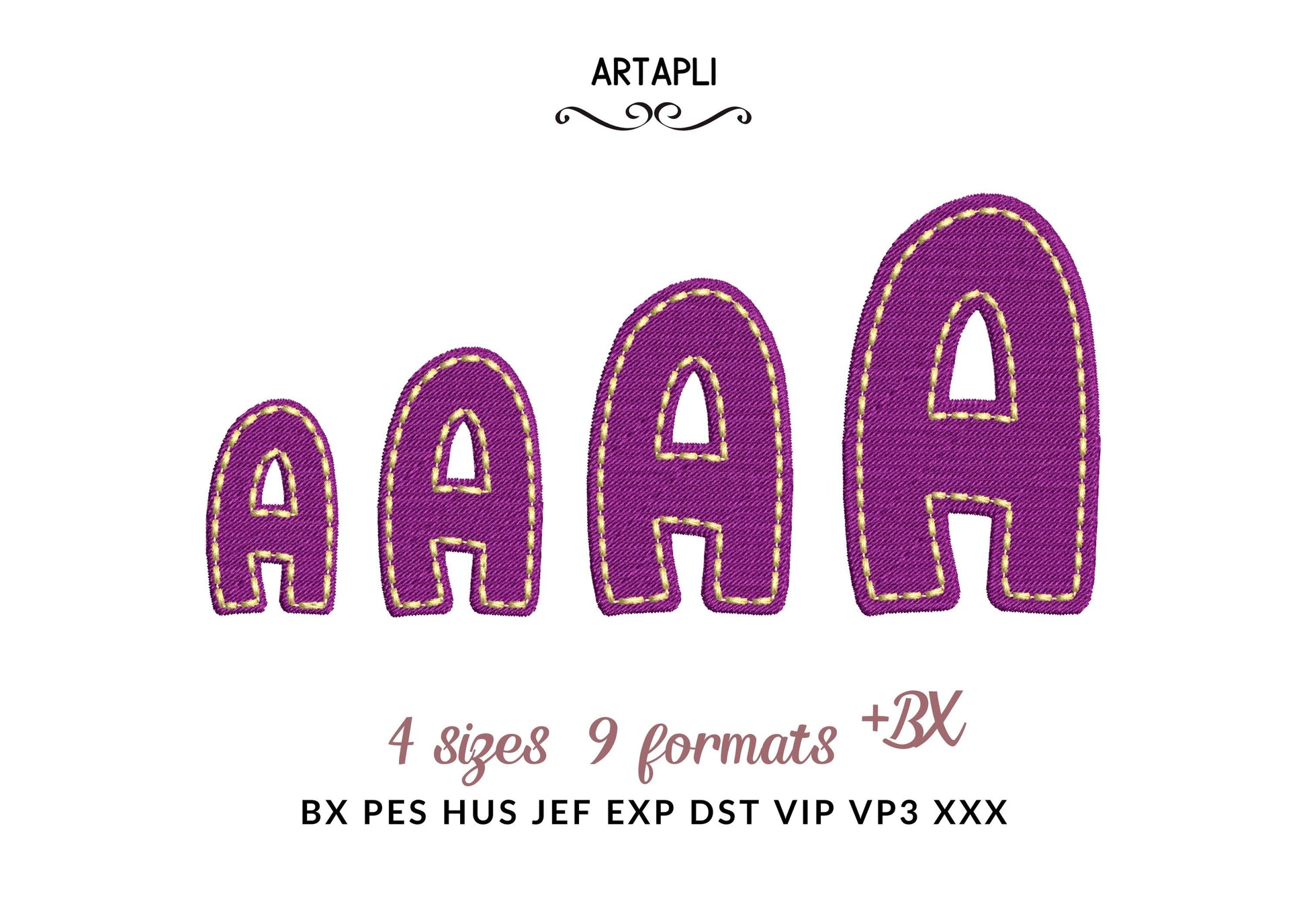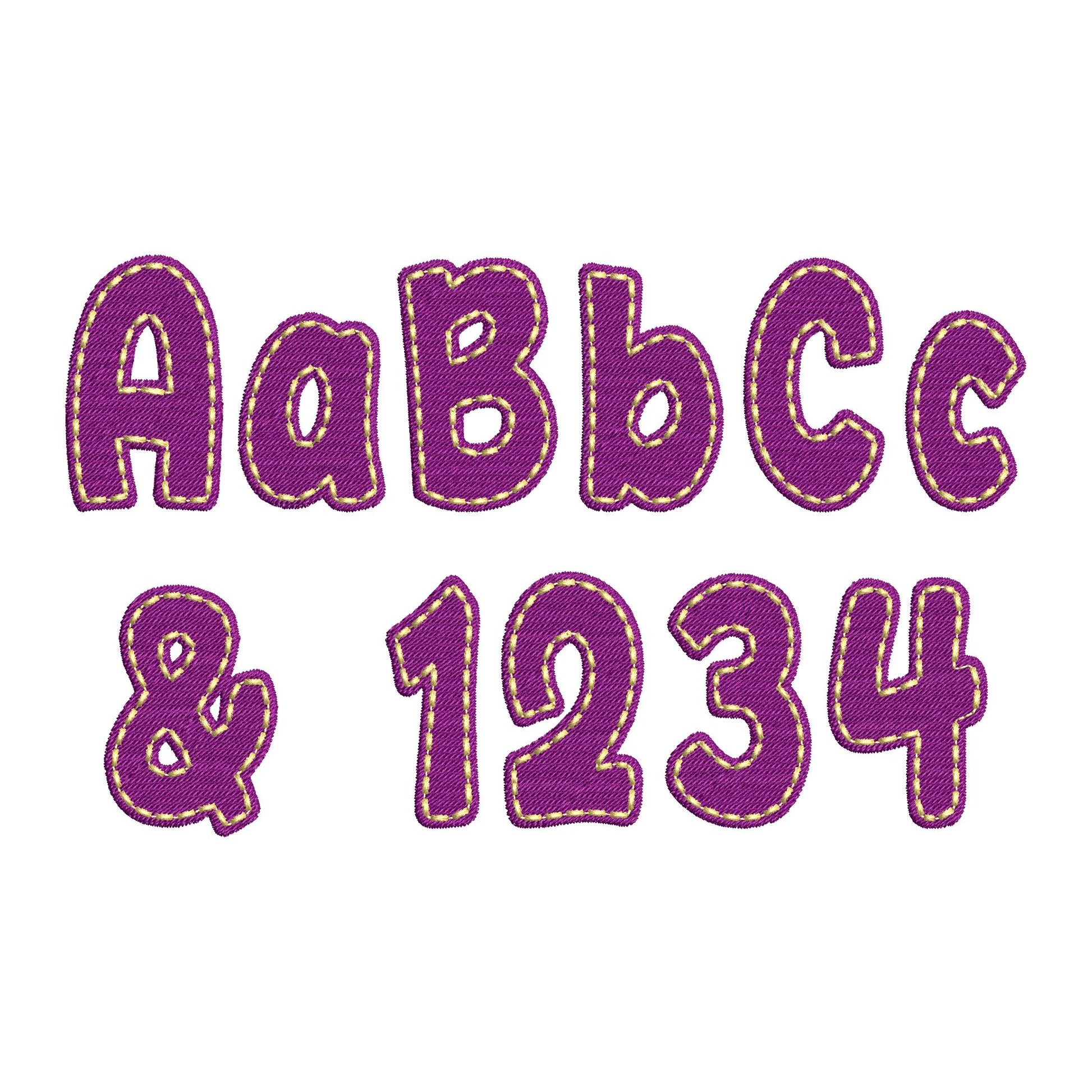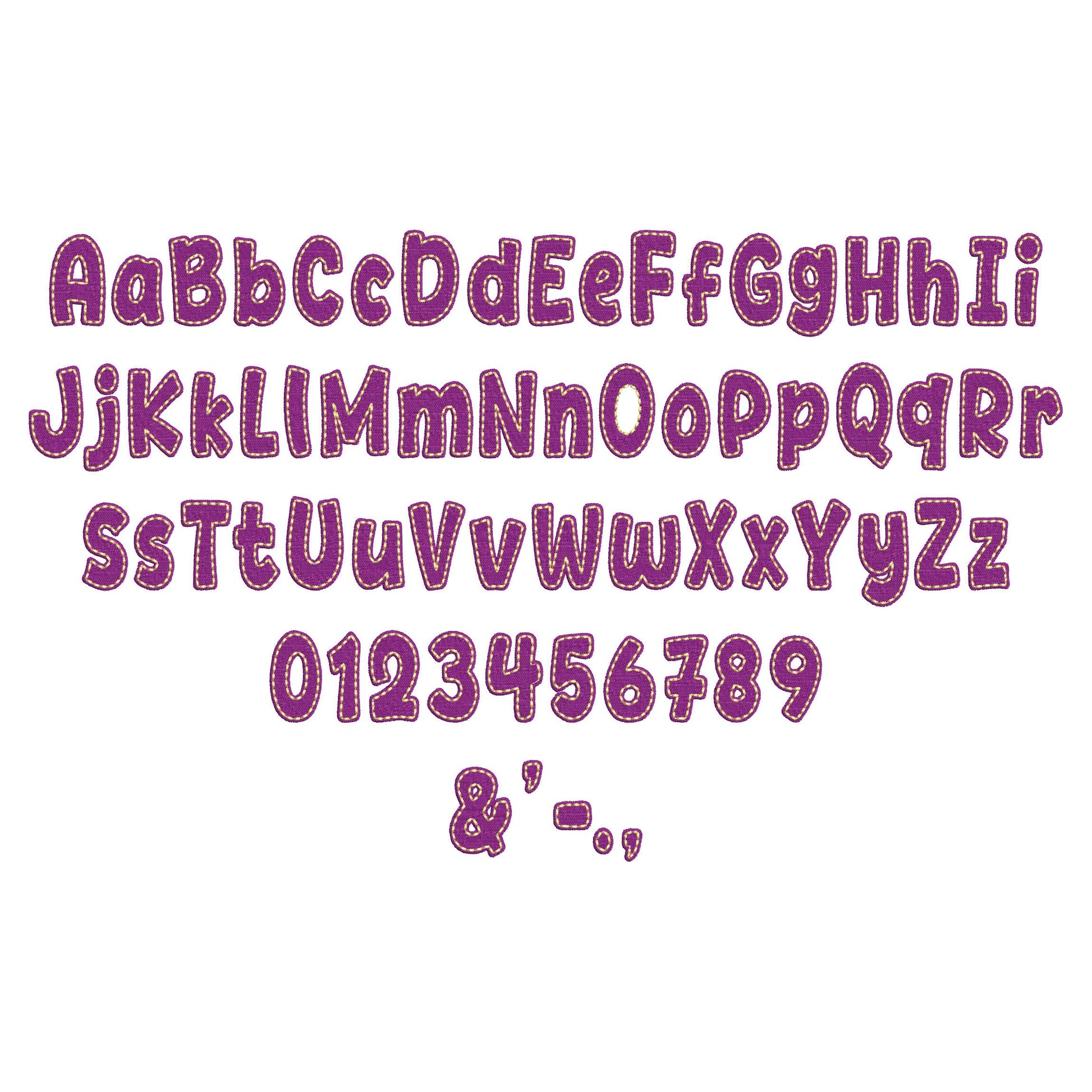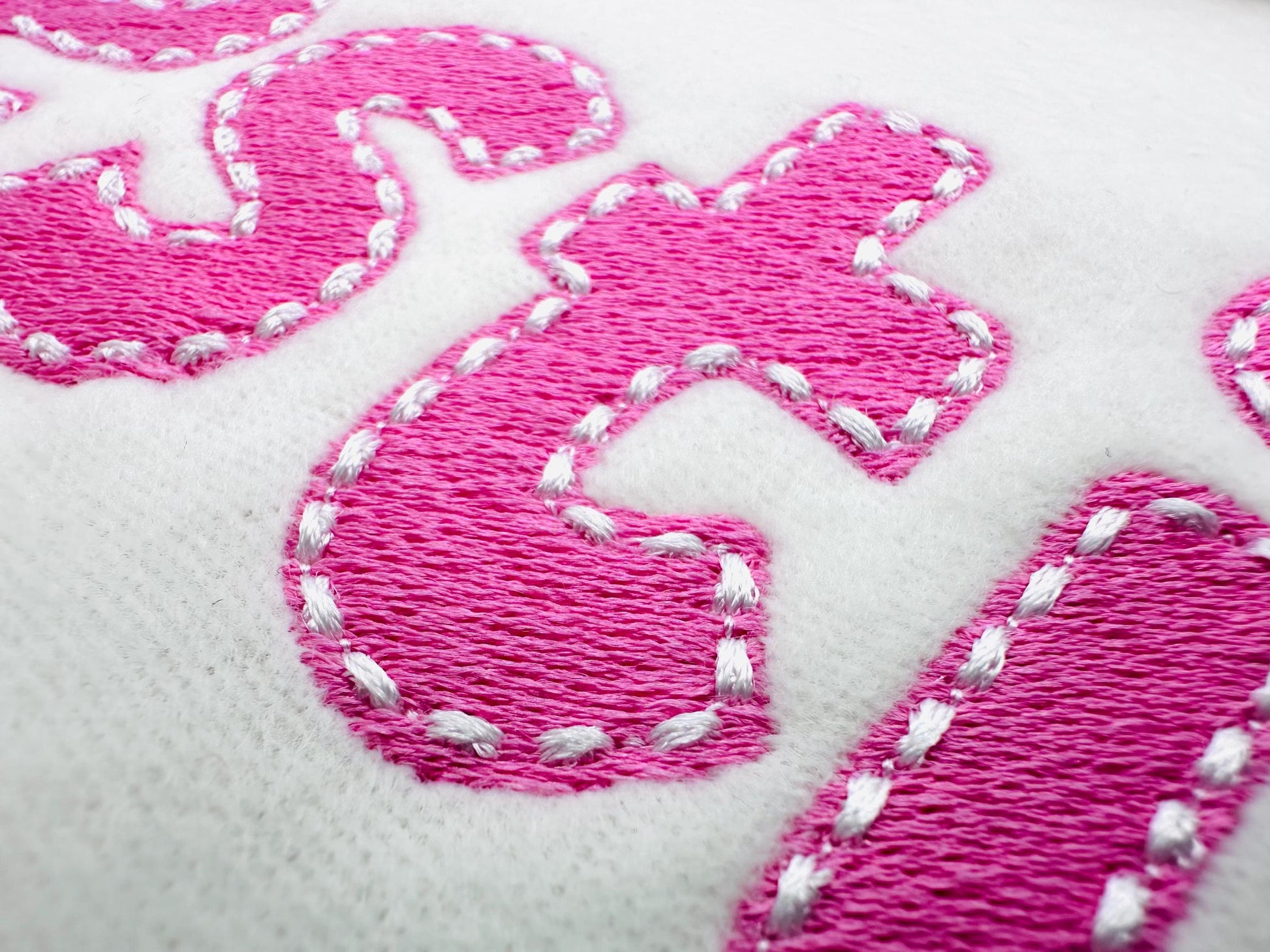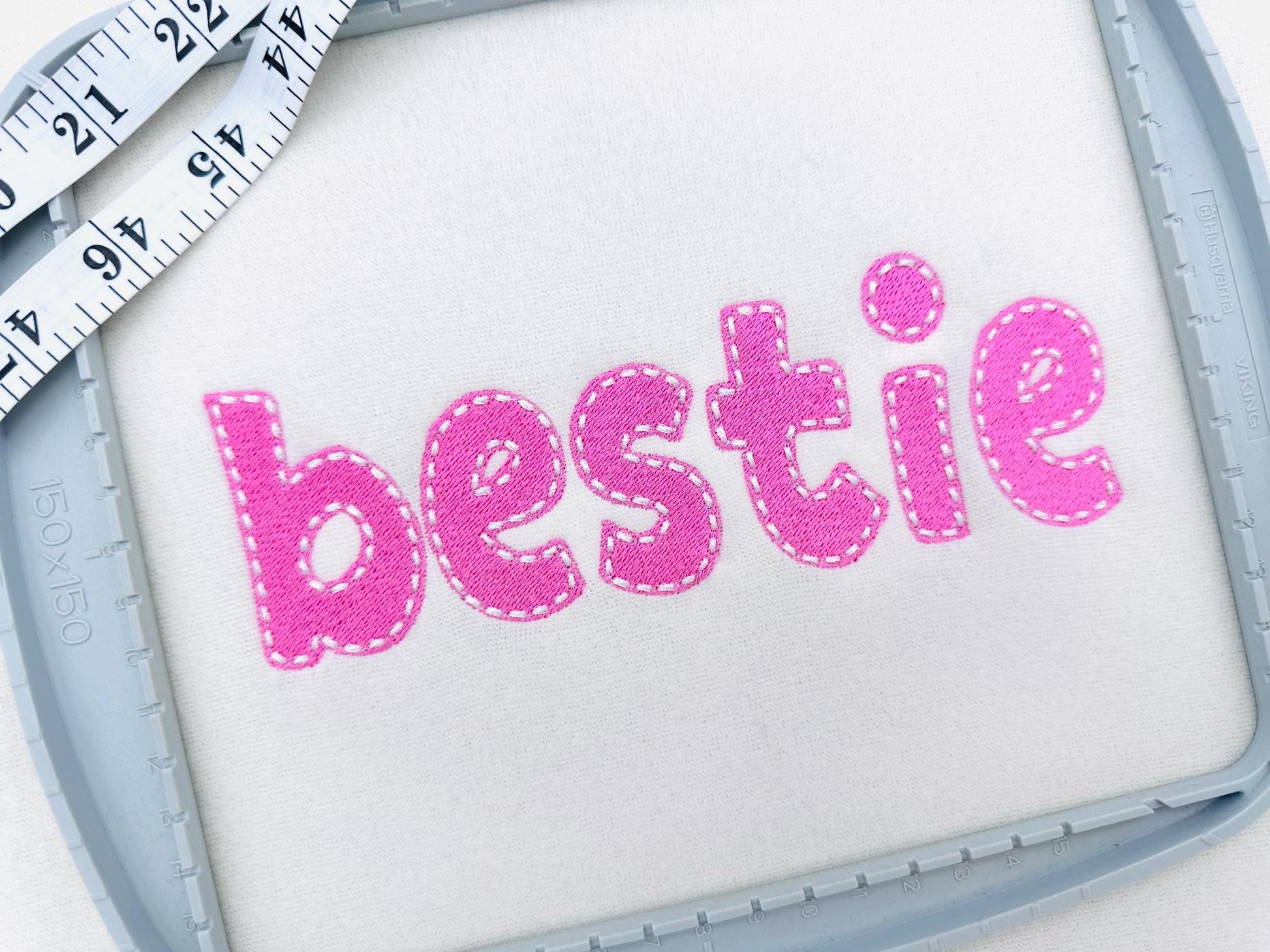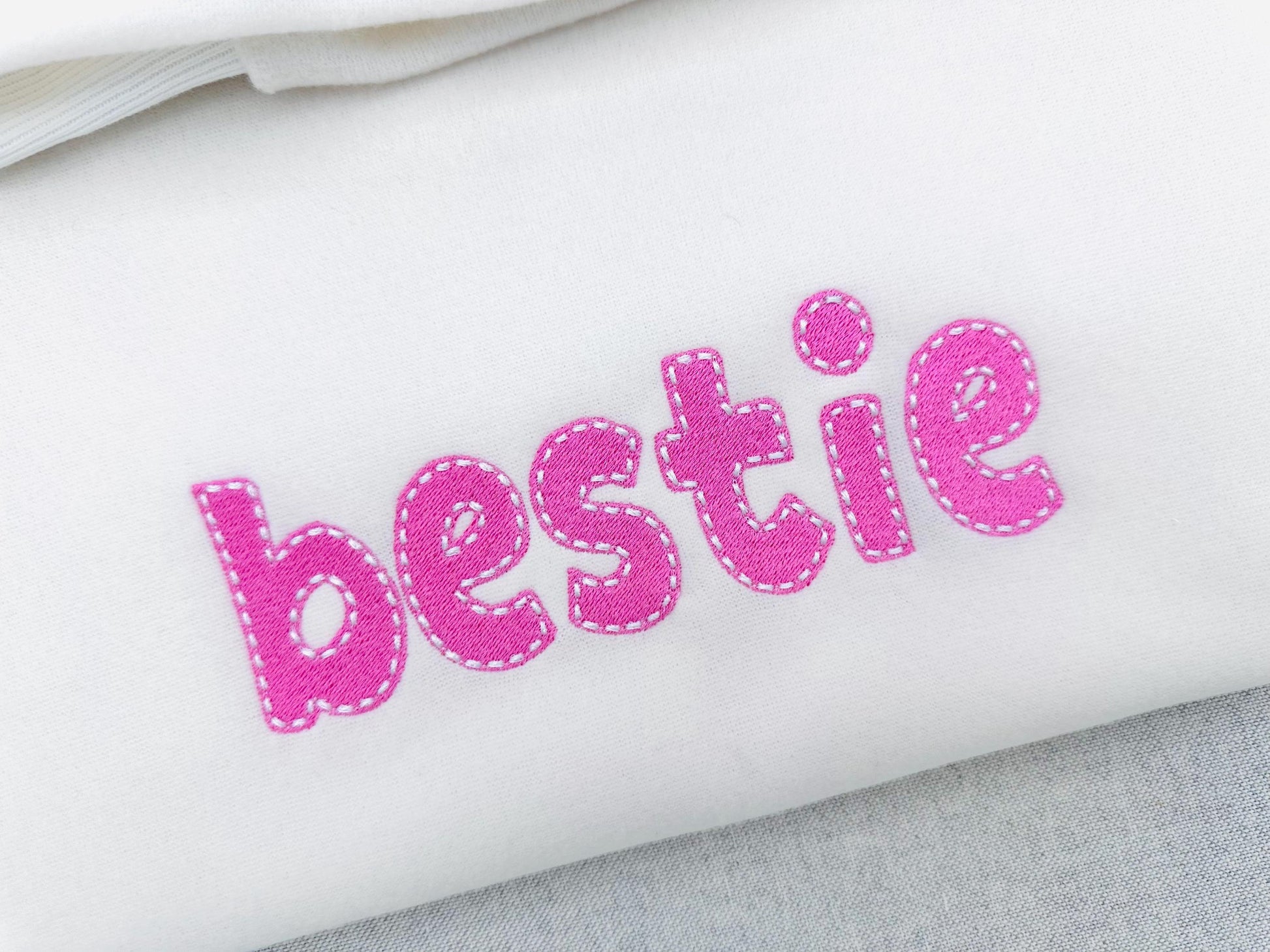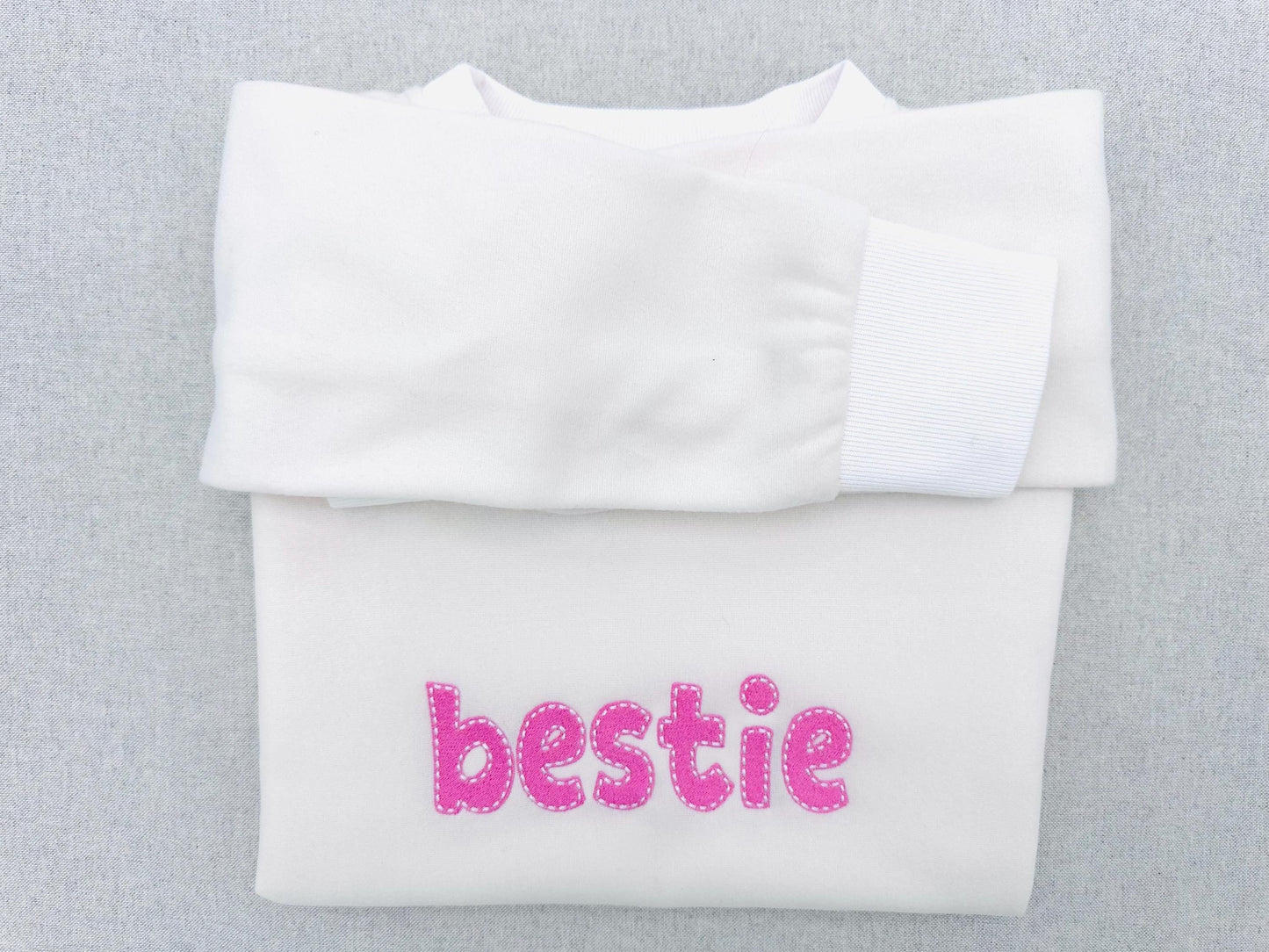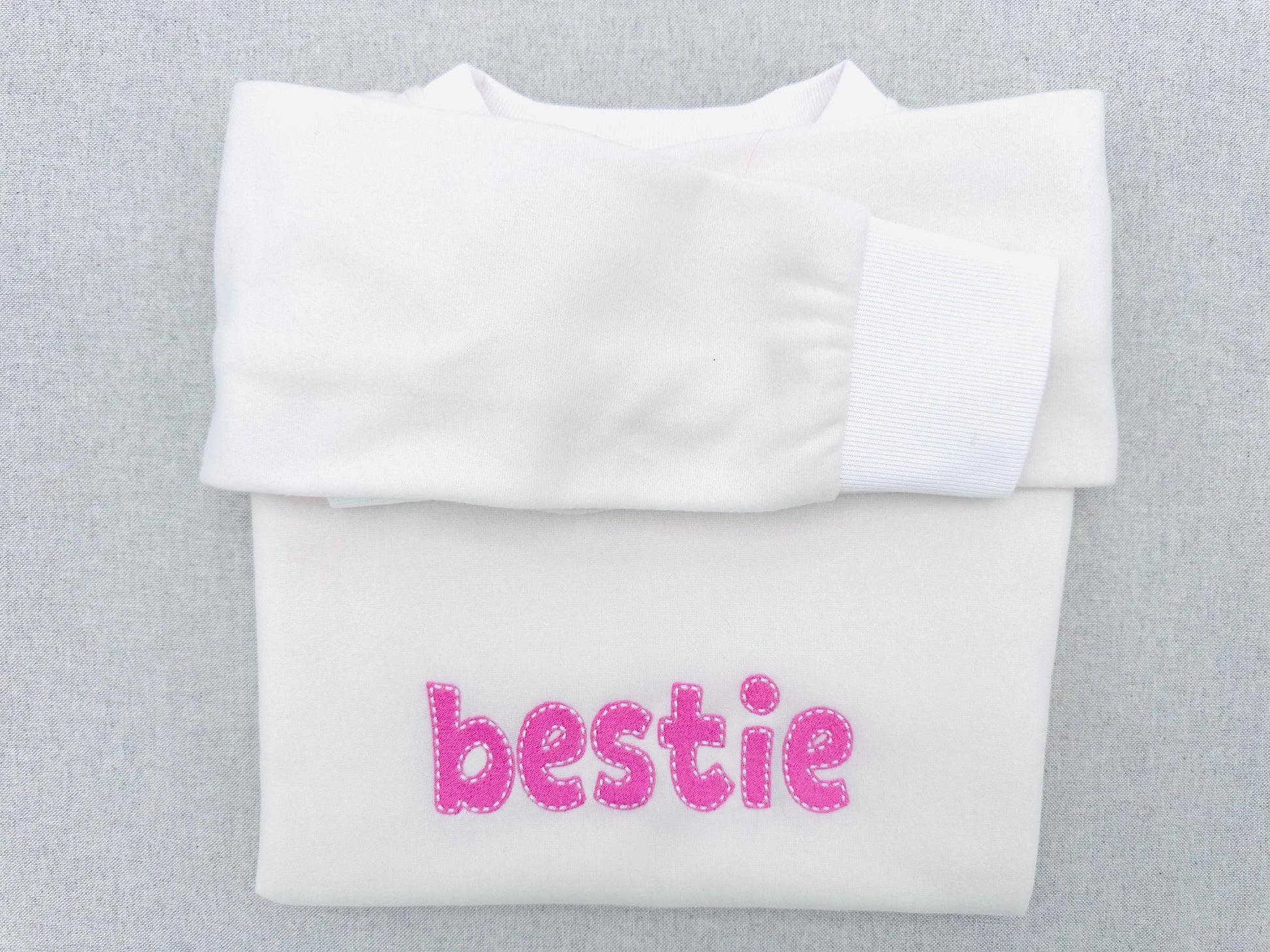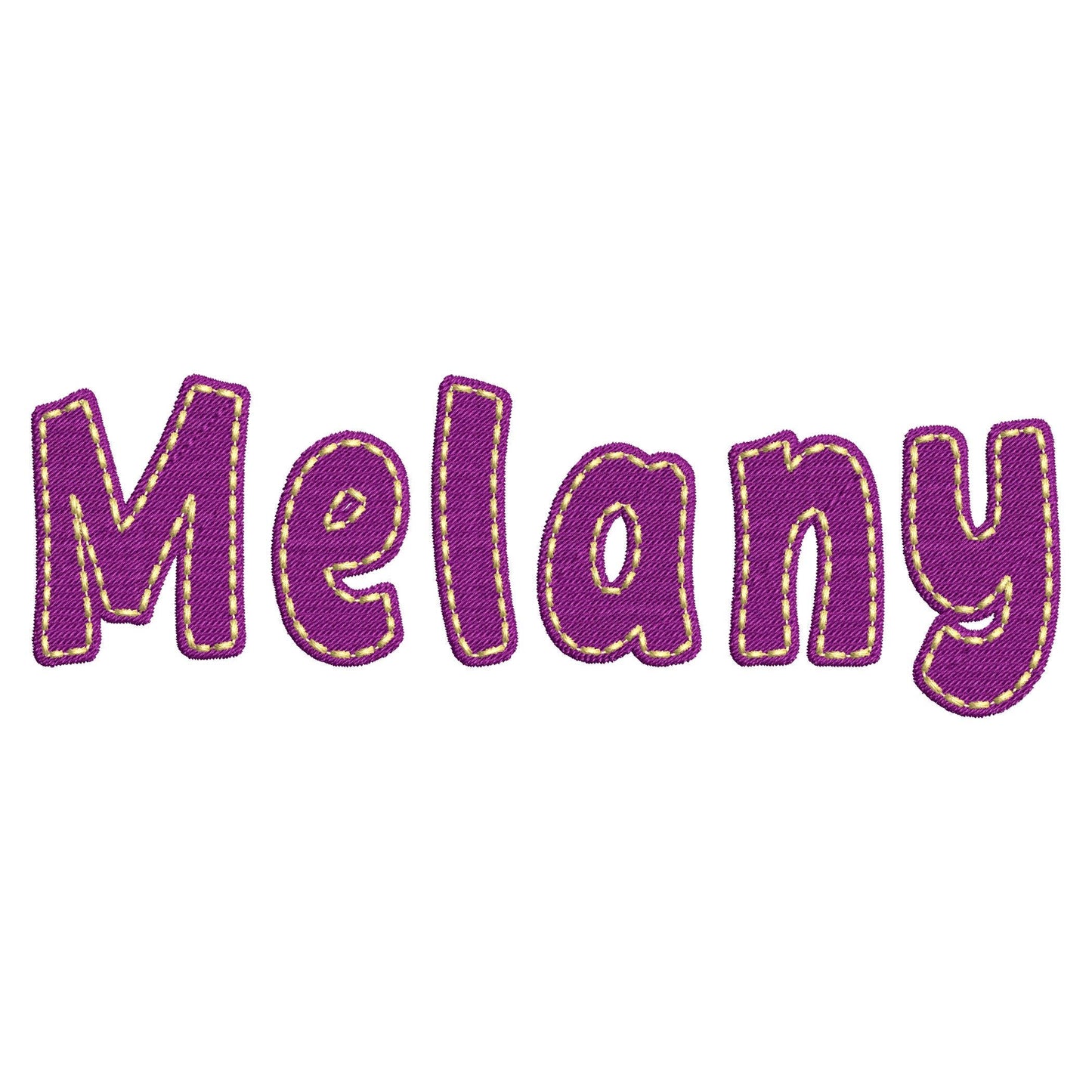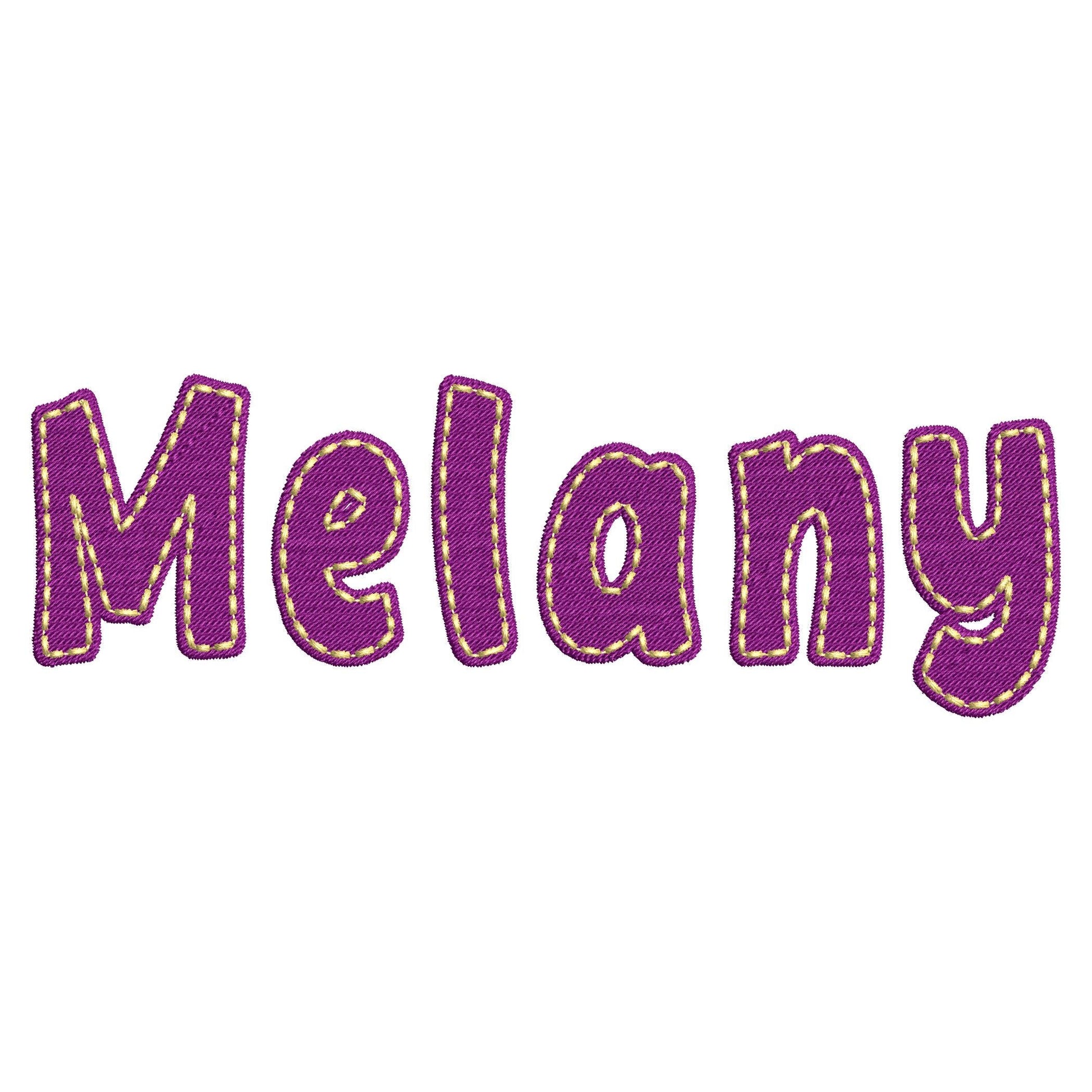
Or click to open the linkA fancy fill stitch font with a hand-stitched look on top. Fun for kids' names, monograms and gifts.
The letters come in four sizes: 1.7, 2.1, 2.6 and 3.3 inches. Fill stitch letters with a running line on top that looks hand-stitched. Includes uppercase and lowercase letters A to Z, numbers 0 to 9 and punctuation.